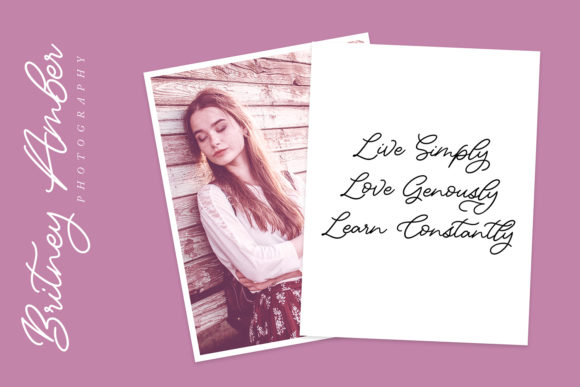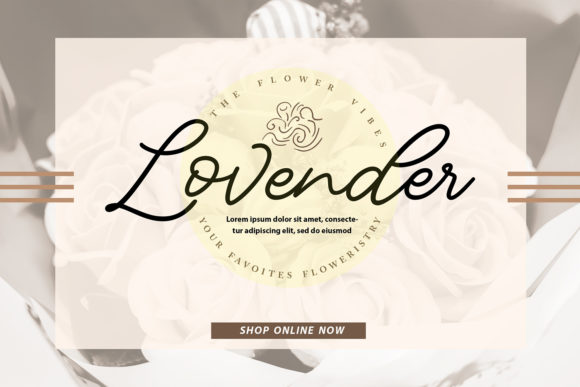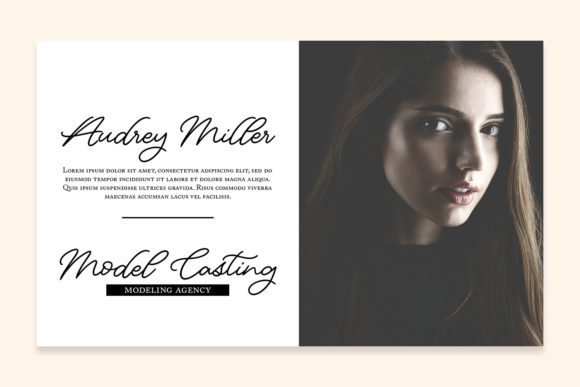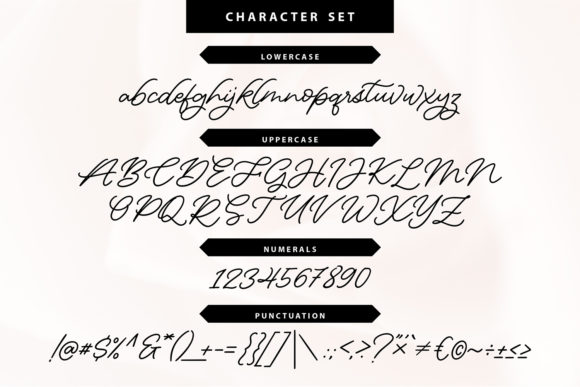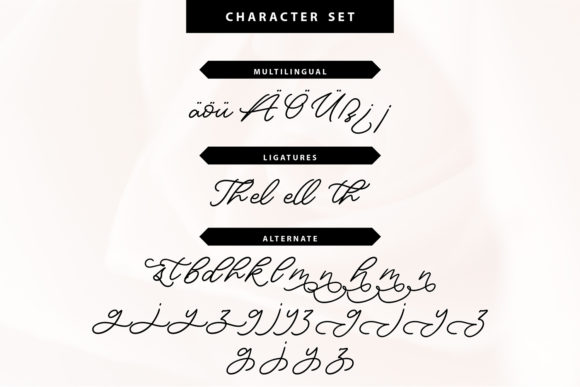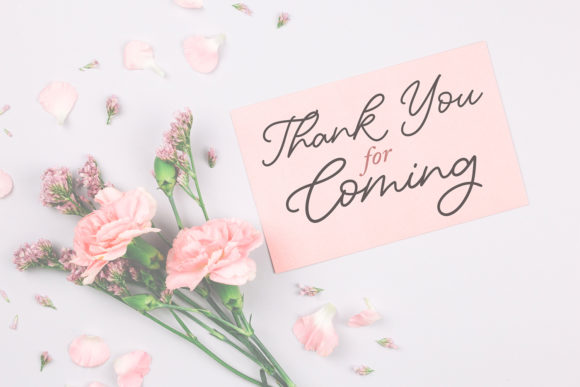
Introducing Charmely Font: The Ultimate Handwritten Font for Your Creative Projects
Are you tired of using the same old fonts for your designs? Do you want to add a touch of elegance and sophistication to your projects? Look no further than Charmely Font, a stunning handwritten font that is sure to become your new favorite. In this article, we’ll take a closer look at what makes Charmely Font so special and how it can elevate your designs to the highest levels.
What is Charmely Font?
Charmely Font is an exquisite handwritten font that has been masterfully designed to capture the hearts of designers and crafters alike. With its unique and elegant style, Charmely Font is perfect for a wide range of creative projects, from wedding invitations and branding materials to social media graphics and digital art.
What Makes Charmely Font So Special?
So, what sets Charmely Font apart from other fonts on the market? For starters, it’s PUA (Private Use Area) encoded, which means that you can access all of the glyphs and swashes with ease. This makes it incredibly easy to use and customize, even for those who are new to font design.
But that’s not all. Charmely Font is also incredibly versatile, with a wide range of applications and uses. Whether you’re looking to create a romantic and whimsical design or a more modern and sleek look, Charmely Font has got you covered.
Key Features of Charmely Font
Here are just a few of the key features that make Charmely Font so special:
- PUA encoded: Easy access to all glyphs and swashes
- Handwritten style: Unique and elegant, with a personal touch
- Versatile: Perfect for a wide range of creative projects
- Easily customizable: Make it your own with just a few clicks
How to Use Charmely Font in Your Designs
Once you’ve selected Charmely Font, you can start experimenting with different glyphs and swashes to create a unique look that’s all your own. With its PUA encoding, you can easily access all of the font’s features, including ligatures, alternates, and more.
Why Designers and Crafters Love Charmely Font
So, why do designers and crafters love Charmely Font so much? Here are just a few reasons:
- Unique style: Charmely Font offers a fresh and unique style that’s sure to stand out
- Ease of use: With its PUA encoding, Charmely Font is incredibly easy to use and customize
- Versatility: Perfect for a wide range of creative projects, from digital art to branding materials
- Elegance and sophistication: Add a touch of elegance and sophistication to your designs with Charmely Font
In conclusion, Charmely Font is an exquisite handwritten font that is sure to become a true favorite among designers and crafters. With its unique style, ease of use, and versatility, Charmely Font is perfect for a wide range of creative projects. Whether you’re looking to add a touch of elegance and sophistication to your designs or simply want to try something new, Charmely Font is the perfect choice. So why wait? Fall in love with Charmely Font today and bring your projects to the highest levels!